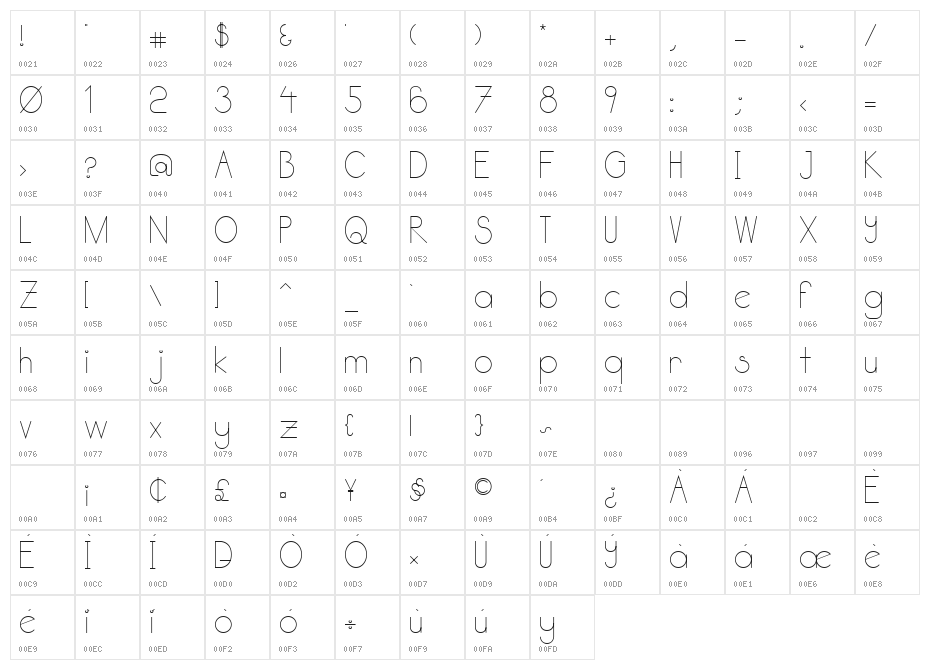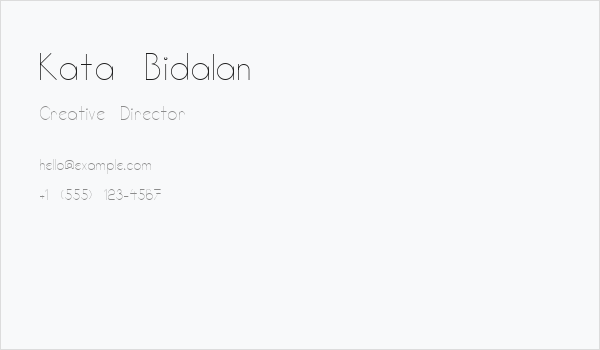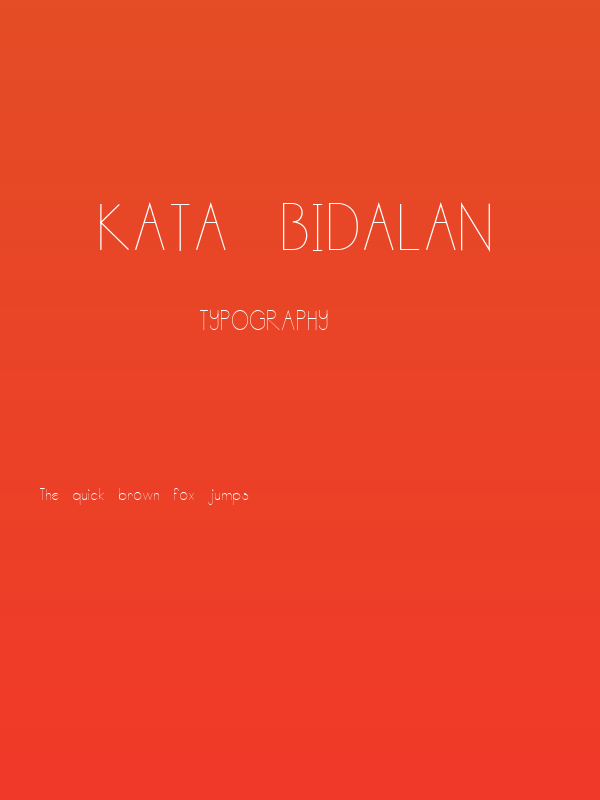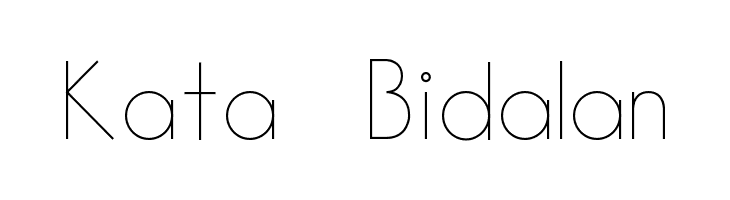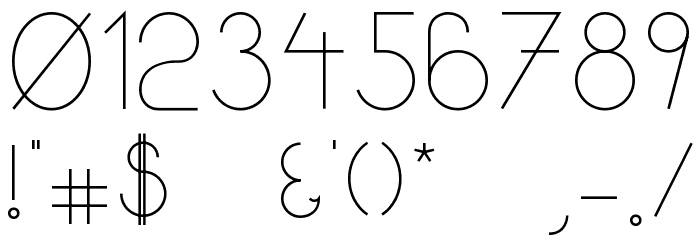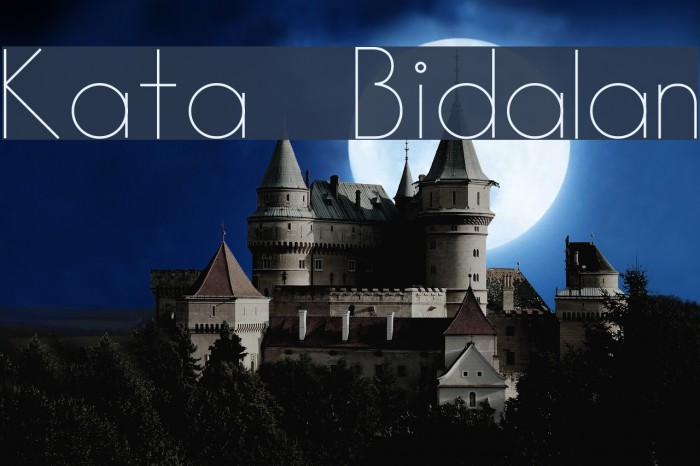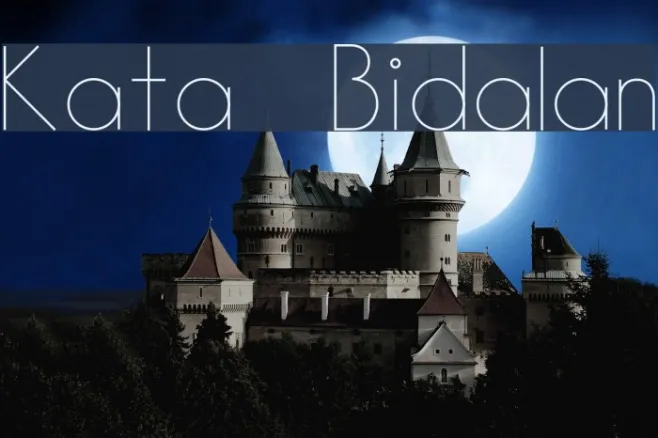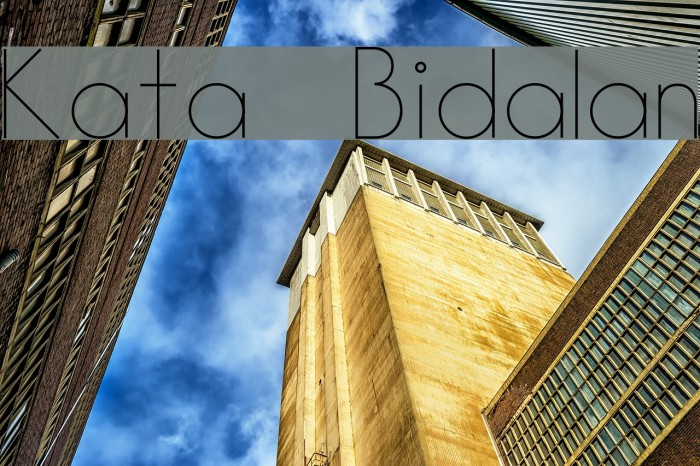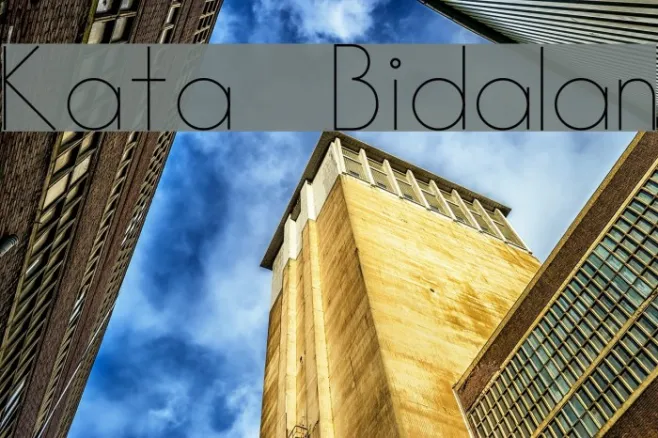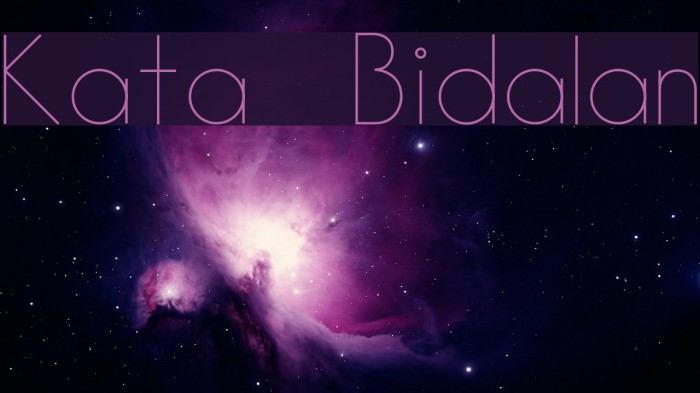
Kata Bidalan Font
Kata Bidalan Description
This font features a clean, minimalist design with thin, uniform strokes that give it a sleek and modern appearance. The characters are well-proportioned with a geometric influence, evident in the circular shapes of letters like 'O' and 'Q'. The uppercase and lowercase letters maintain a consistent style, with a slight variation in height and width that adds visual interest. The numerals are clear and easy to read, matching the overall aesthetic of the alphabet. Special characters are included, maintaining the same thin line weight and geometric style, making this font versatile for various uses.
| Proposed Projects | Ideal for modern branding, minimalist posters, sleek website headers, and contemporary editorial design. |